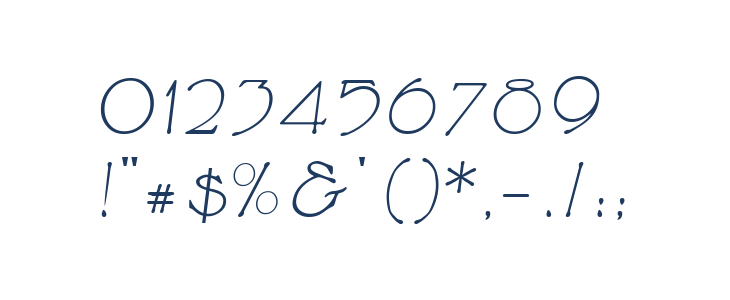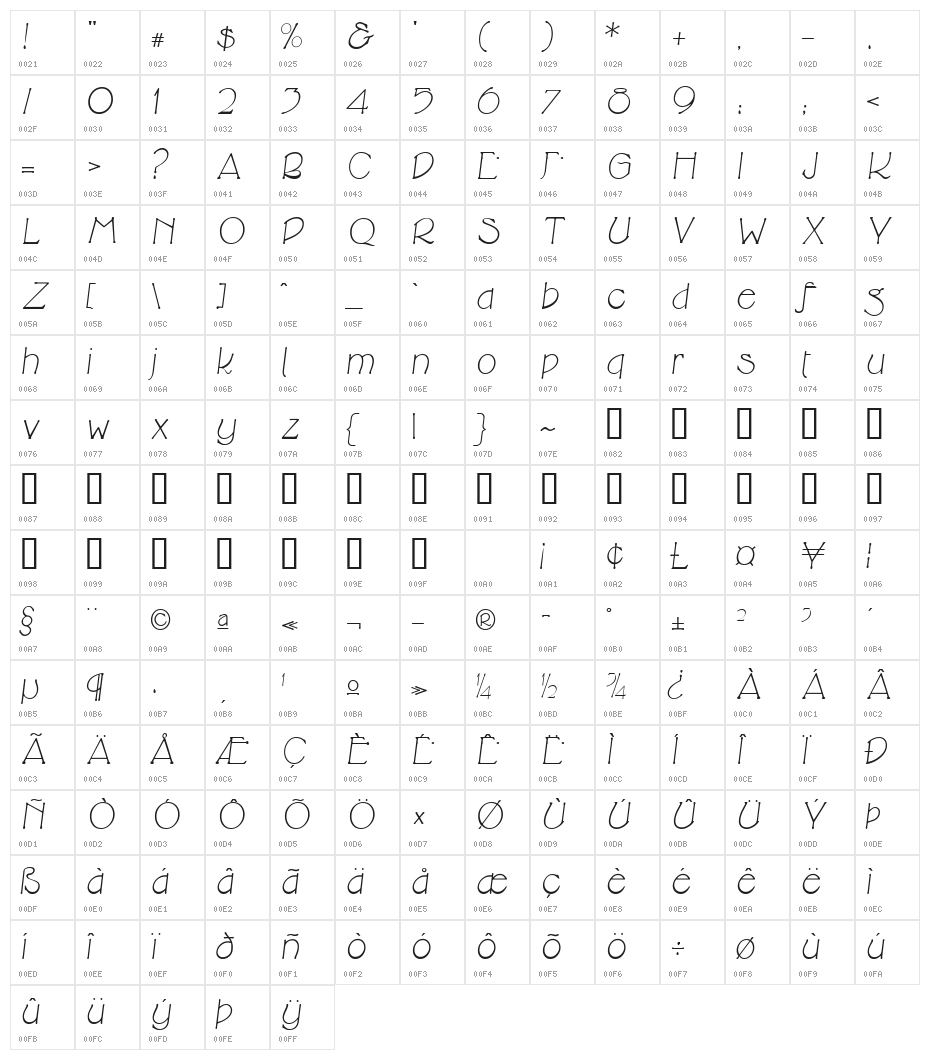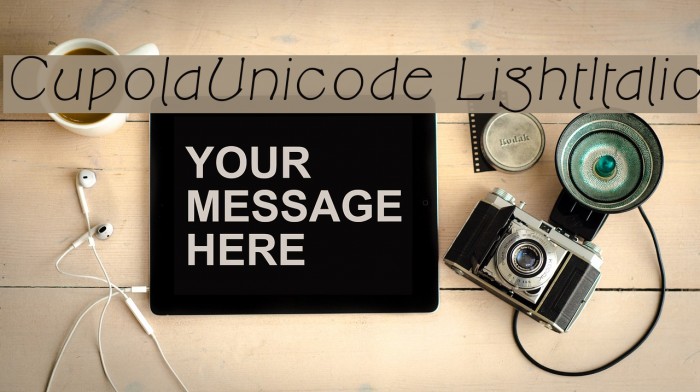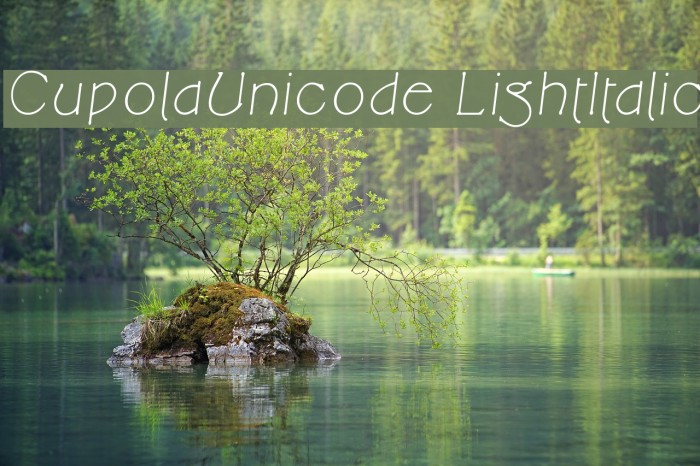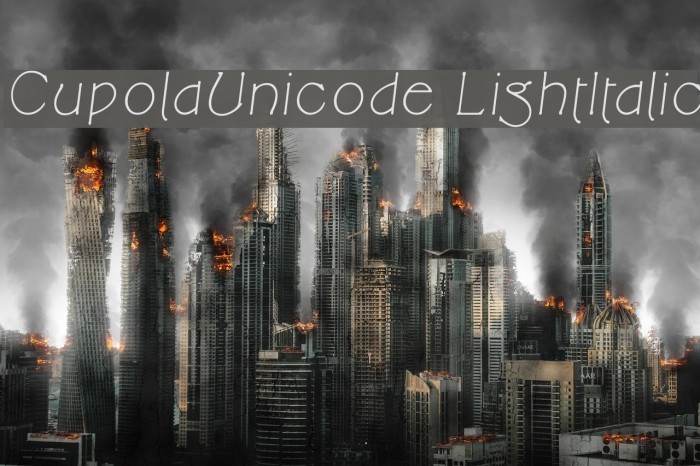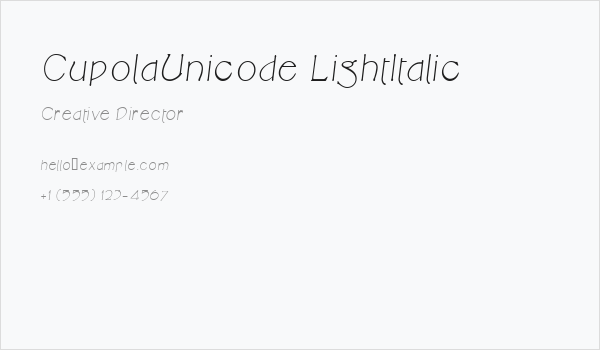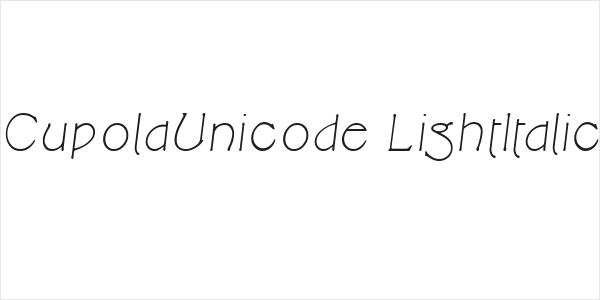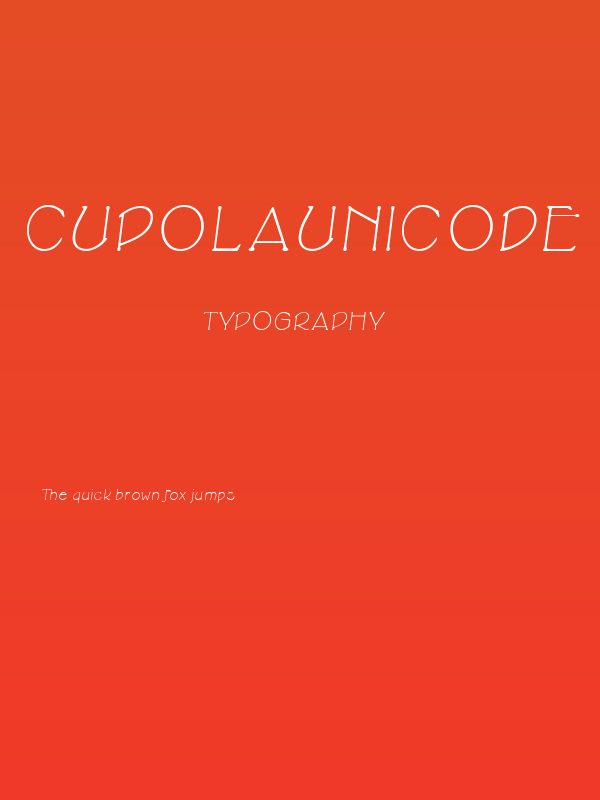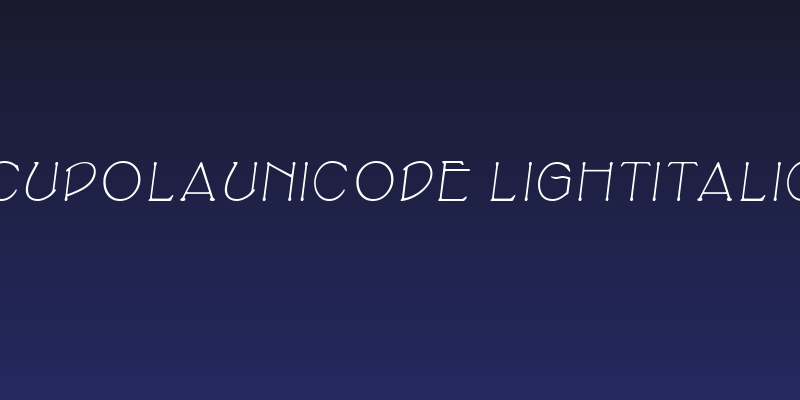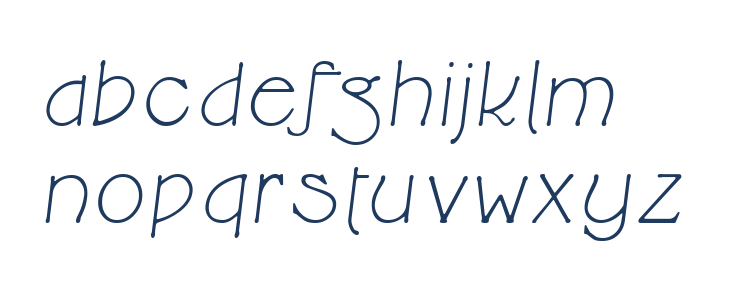
CupolaUnicode LightItalic Font
CupolaUnicode LightItalic Description
This font features a light and elegant design with a subtle italic slant, giving it a graceful and sophisticated appearance. The characters are crafted with a delicate touch, showcasing a modern yet timeless style. The uppercase letters are slightly elongated, while the lowercase letters maintain a consistent flow, contributing to its readability. The numerals are distinct and clear, complementing the overall aesthetic. Special characters are thoughtfully designed, maintaining the font's cohesive look. This font's light weight and italic style make it suitable for projects that require a touch of elegance and modernity.
| Overall Style | Modern, Elegant |
| Use Case | Headlines, Invitations, Branding |
| Proposed Projects | Ideal for wedding invitations, elegant branding, fashion magazines, and upscale product packaging. |